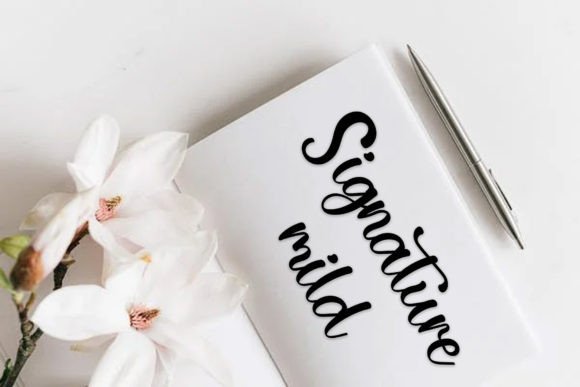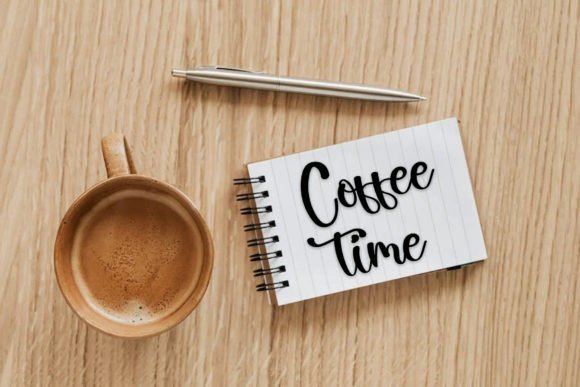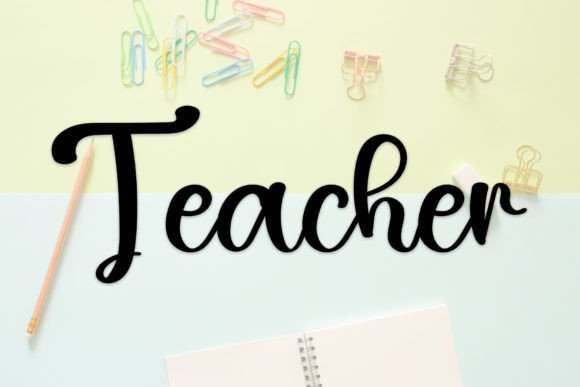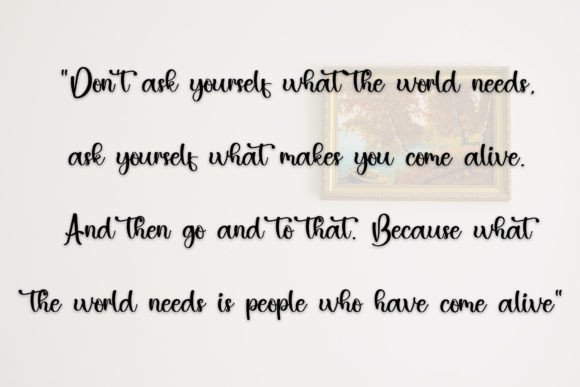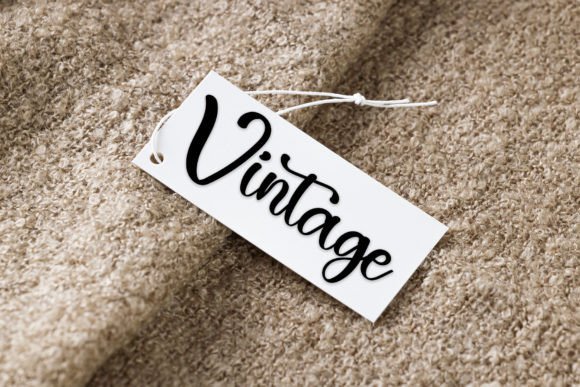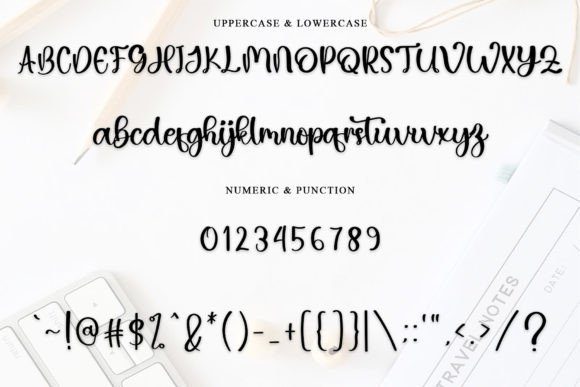
Hello Diary Font: Elevate Your Designs with Elegance
Hello Diary Font is a stunning handwritten font that has captured the hearts of designers and crafters alike. With its elegant touch and timeless style, it’s the perfect addition to your favorite projects. In this article, we’ll dive into the world of Hello Diary Font, exploring its unique features, and how you can use it to create breathtaking designs.
The Charm of Hello Diary Font
Hello Diary Font is a beautifully crafted handwritten font that exudes sophistication and charm. Its elegant touch is instantly noticeable, making it an excellent choice for designers seeking to add a touch of refinement to their work. The font’s distinct style is both classic and modern, allowing it to seamlessly blend into various design projects.
Key Features of Hello Diary Font
- Elegant Handwritten Style: Hello Diary Font boasts a gorgeous handwritten style that’s perfect for creating eye-catching designs.
- Timeless Appeal: The font’s classic charm ensures it remains relevant, even as design trends evolve.
- Distinctive Character: Hello Diary Font has an unmistakable character that sets it apart from other fonts.
- Versatile: This font is suitable for a wide range of design projects, from branding and advertising to crafting and scrapbooking.
Uses for Hello Diary Font
Hello Diary Font is an incredibly versatile font that can be used in various design projects, including:
- Branding and Logo Design: Create a lasting impression with a custom logo that incorporates Hello Diary Font.
- Advertising and Marketing Materials: Use the font to craft compelling ad copy, brochures, and flyers.
- Crafting and Scrapbooking: Add a personal touch to your scrapbook pages, cards, and other craft projects.
- Digital and Print Media: Incorporate Hello Diary Font into your website, social media graphics, and print publications.
Tips for Using Hello Diary Font
To get the most out of Hello Diary Font, keep the following tips in mind:
- Pair with Complementary Fonts: Combine Hello Diary Font with other fonts to create visual interest and hierarchy.
- Experiment with Colors: Try out different color schemes to find the perfect match for your design.
- Pay Attention to Kerning: Adjust the kerning to ensure the font looks polished and professional.
Why Designers and Crafters Love Hello Diary Font
Hello Diary Font has won the hearts of designers and crafters due to its:
- Unique Style: The font’s distinctive character sets it apart from other fonts.
- Ease of Use: Hello Diary Font is easy to read and works well in various design contexts.
- Emotional Connection: The font’s elegant touch evokes feelings of sophistication and refinement.
Hello Diary Font is a beautiful handwritten font that can elevate your designs to new heights. Its elegant touch, timeless style, and versatility make it an excellent choice for designers and crafters. With its unique features and wide range of uses, it’s no wonder Hello Diary Font has become a favorite among creative professionals. So why not give it a try and see how it can transform your designs?
Get Ready to Fall in Love with Hello Diary Font